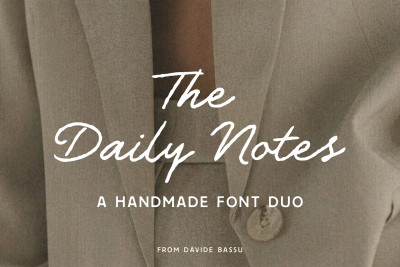
The Daily Notes - Script and Sans
The Daily Notes - Script and Sans Font
The Daily Notes - Script and Sans brings a confident, polished presence to any design, from business materials to creative campaigns.
Common applications include business cards, posters, web headers, advertising materials, book covers, and corporate identity systems.